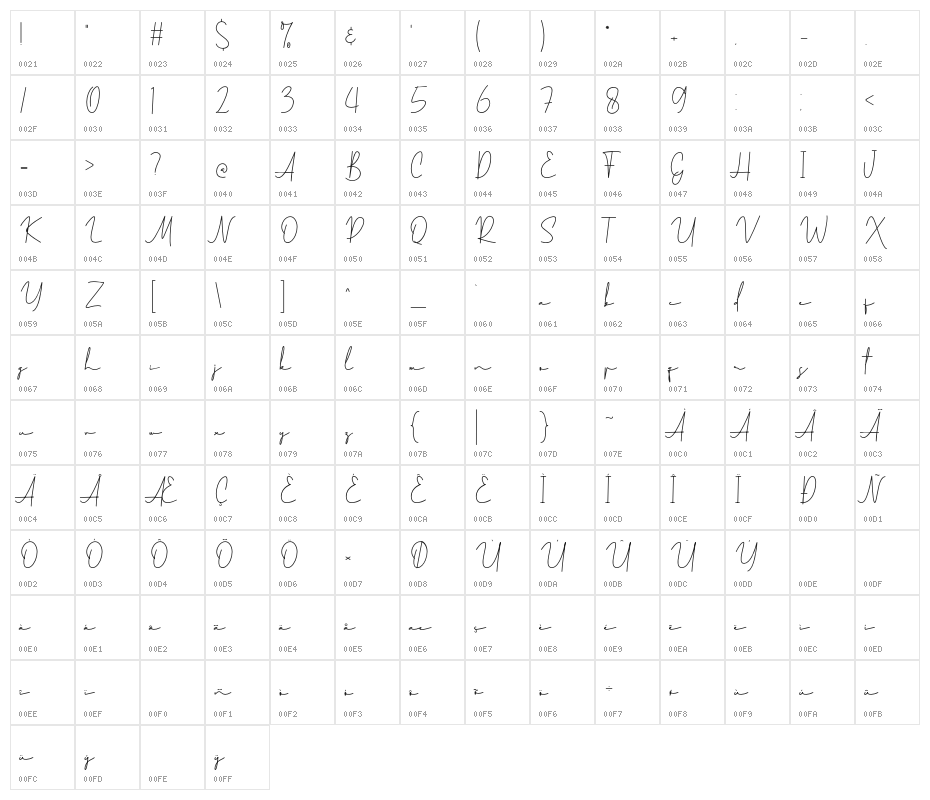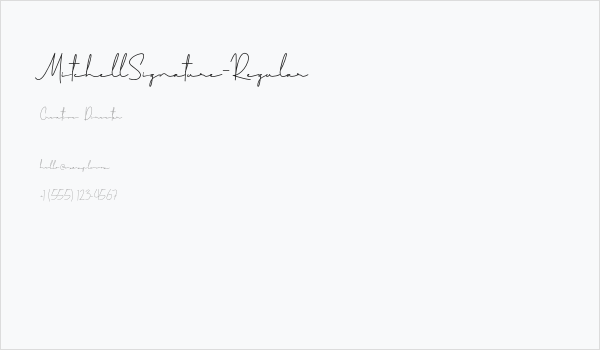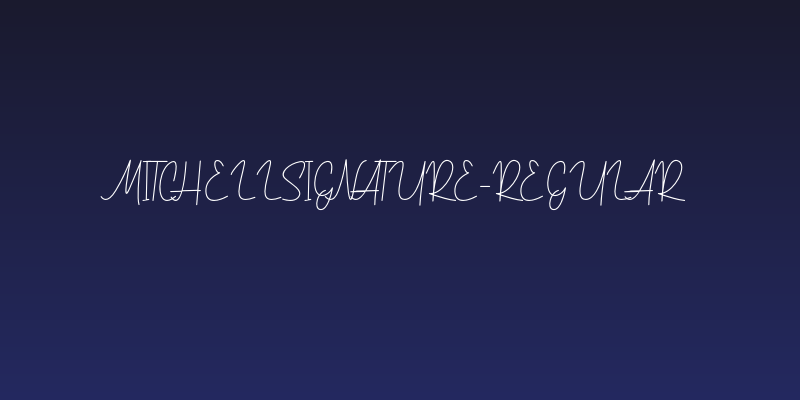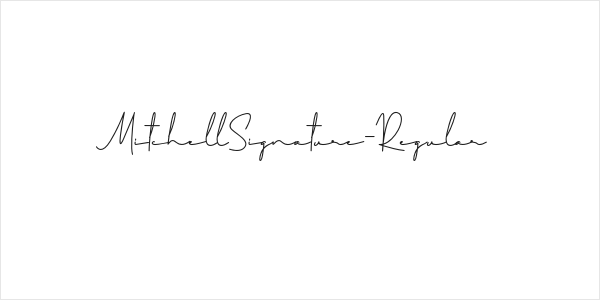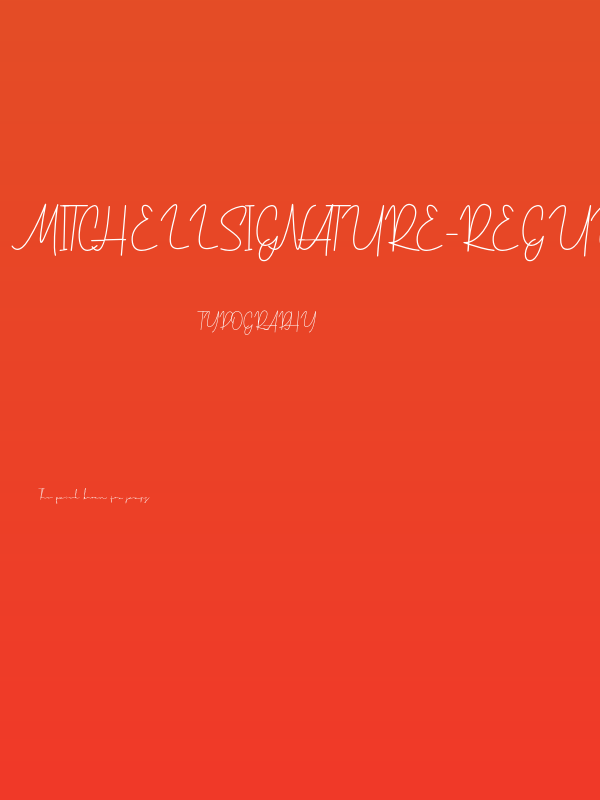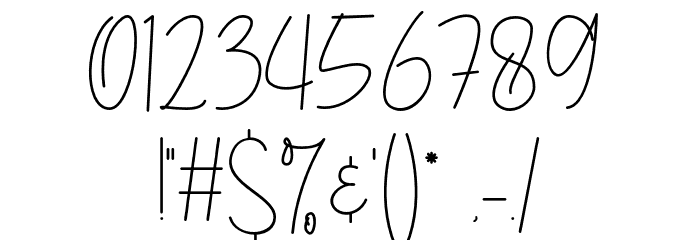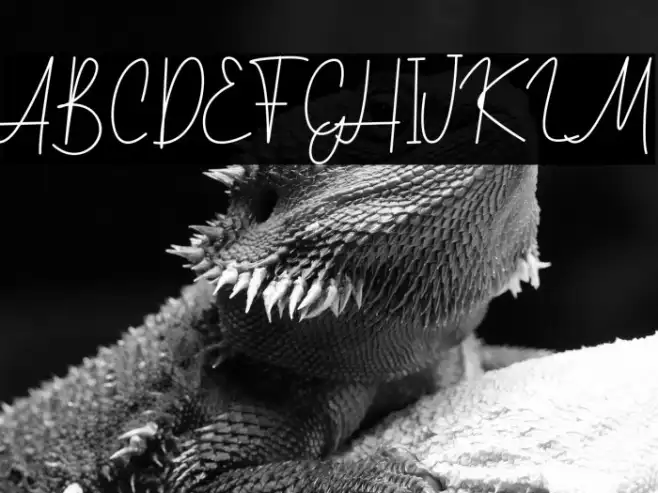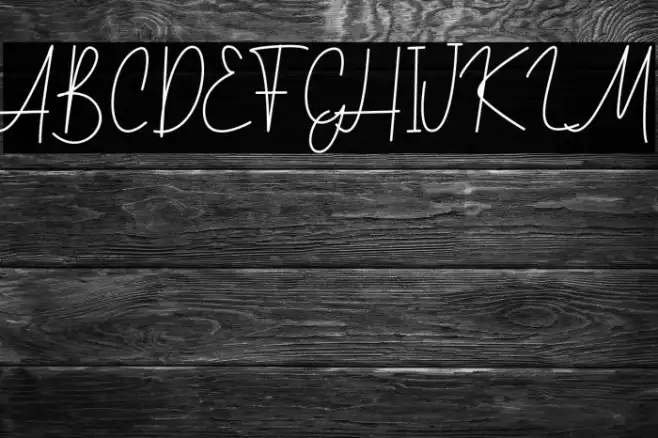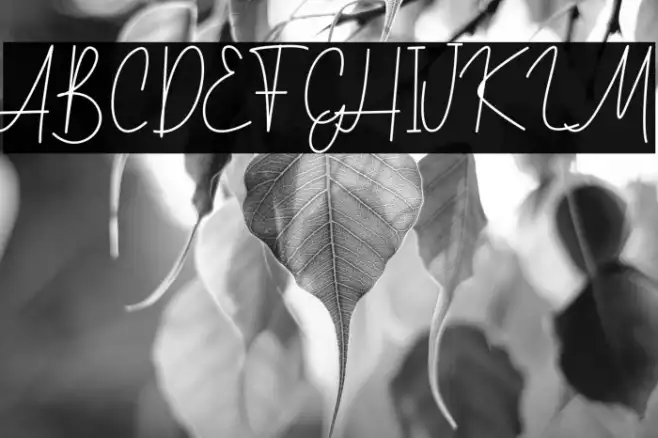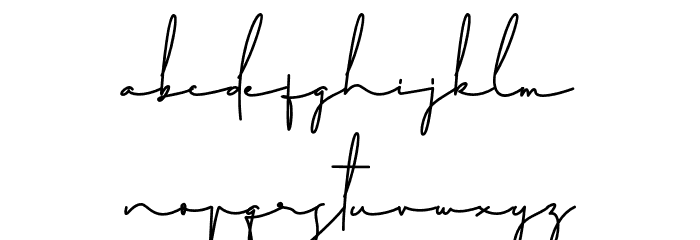
MitchellSignature-Regular Font
MitchellSignature-Regular Description
This font showcases a delicate and flowing script style, characterized by its elegant and fluid letterforms. The uppercase letters are tall and slender, with graceful curves and loops that give a sense of movement and sophistication. The lowercase letters maintain a consistent flow, connecting smoothly to create a cohesive and harmonious appearance. The numerals are well-proportioned, complementing the overall aesthetic with their rounded and slightly elongated shapes. Special characters are thoughtfully designed, maintaining the font's elegant and refined style. This font exudes a sense of personal touch and creativity, making it ideal for projects that require a handwritten or signature-like quality.